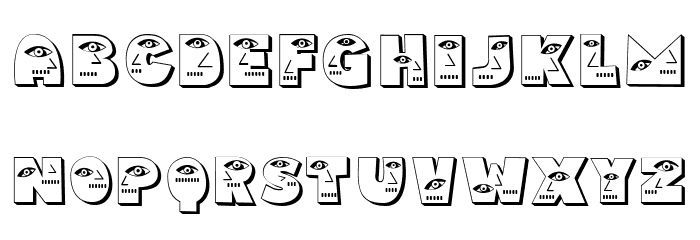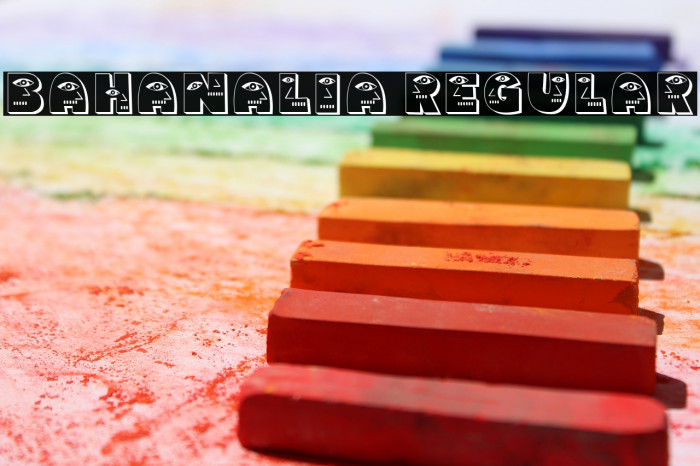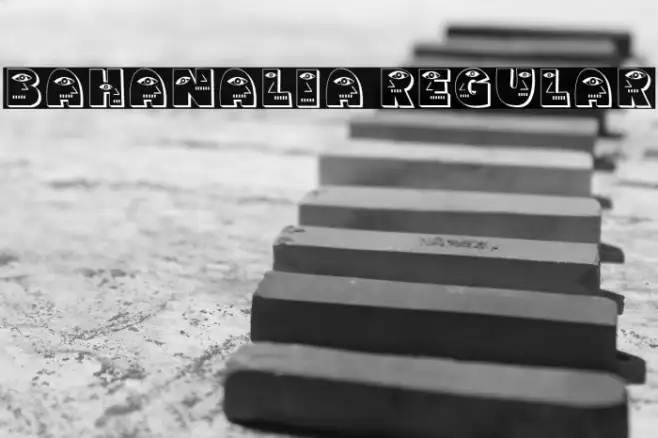
Bahanalia Regular Font
This font features a unique and playful design, incorporating abstract facial elements into each letter. The characters are bold and have a three-dimensional appearance, with thick outlines and shadowing that adds depth. The whimsical style is characterized by the inclusion of eyes, noses, and mouths, giving each letter a distinct personality. The font maintains a consistent height and width across all characters, ensuring uniformity while allowing for creative expression. The overall look is both artistic and modern, making it suitable for projects that require a touch of creativity and fun.
A playful, artistic font with abstract facial elements in each letter.
- Proposed Projects: Ideal for creative projects such as children's books, playful branding, posters, and artistic designs.